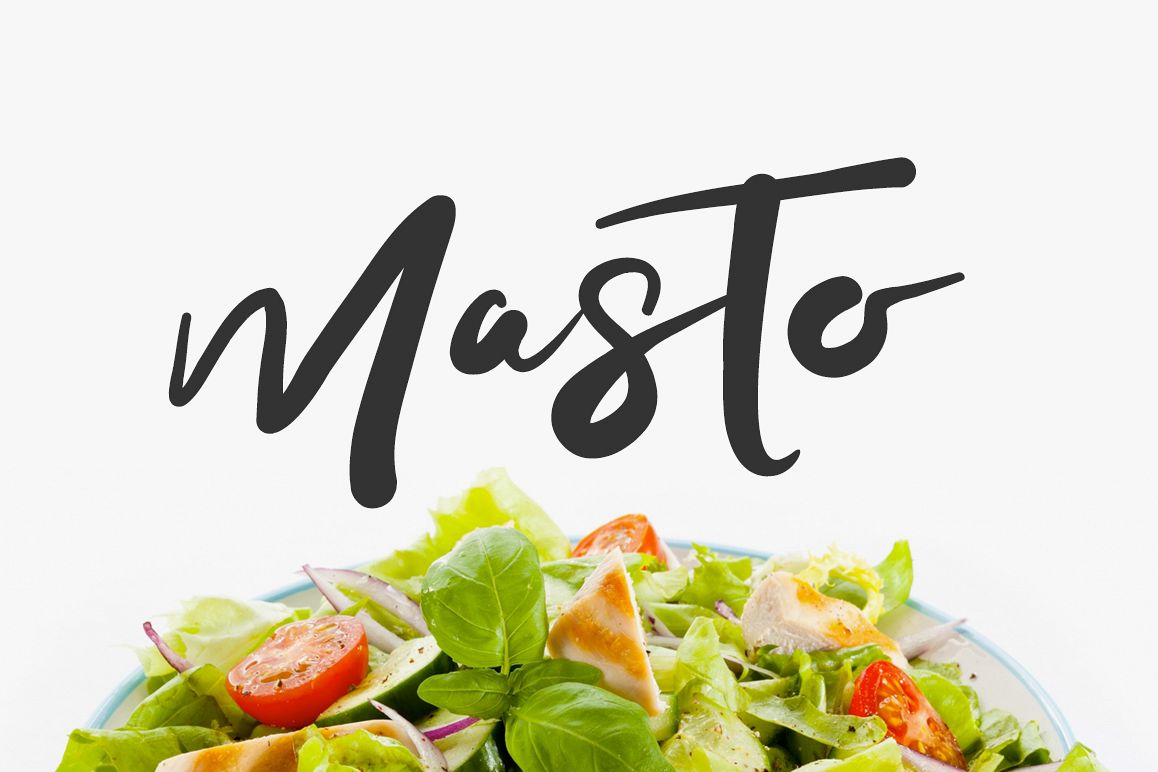
Give your designs an authentic handcrafted feel. "Masto Typeface" is perfectly suited to logo, stationery, branding, typography quotes, magazine or book cover, website header, clothing, branding, packaging design, restaurant and more. License: This font included for personal, commercial use, multiple projects, behalf of a client. Fonts may be printed on to products that are subsequently sold, websites and within website design. Graphics may be printed on to products that are subsequently sold when an effort is made to use them as part of a new design including a variation of other graphics or fonts. This font available on OTF and TTF formats.